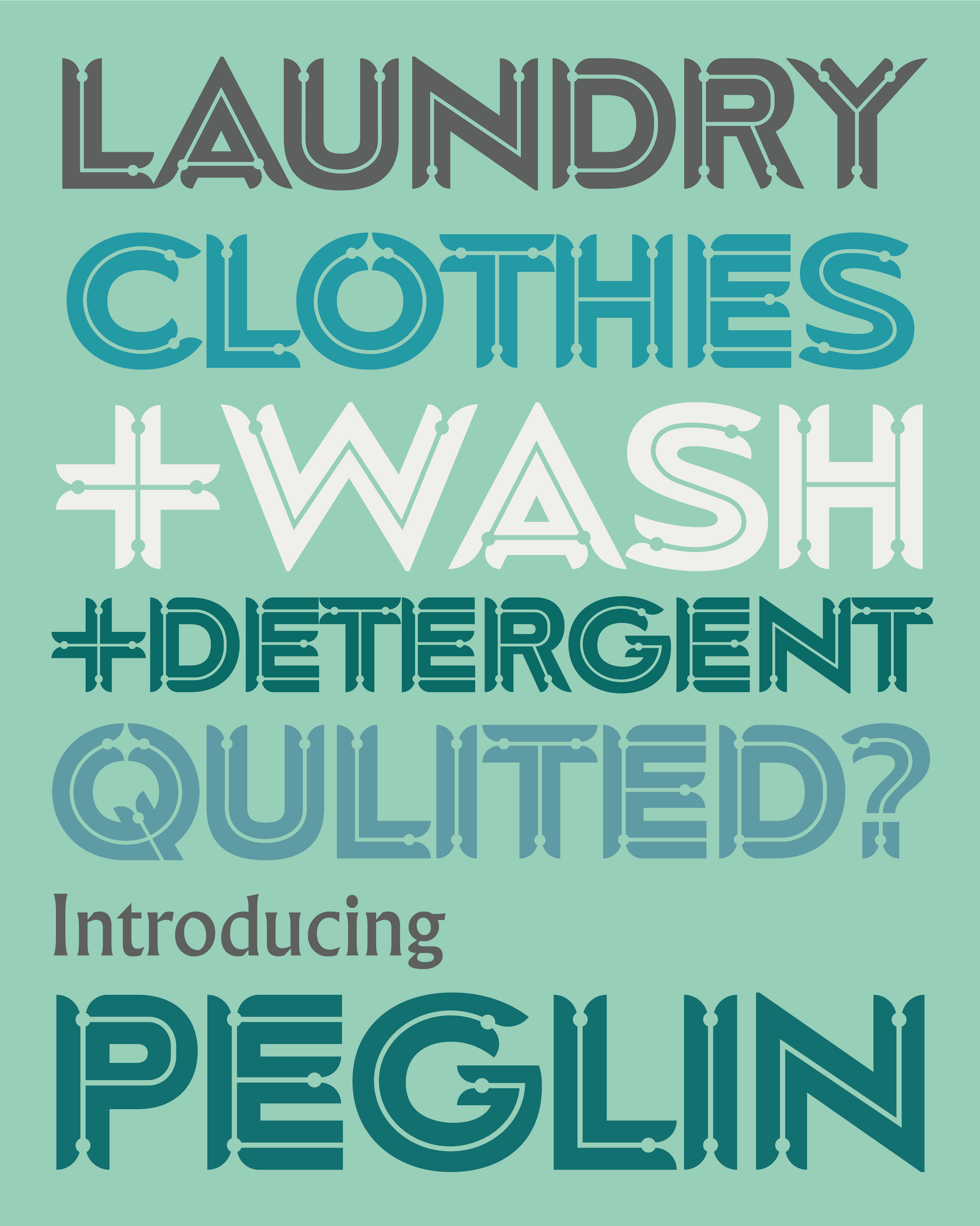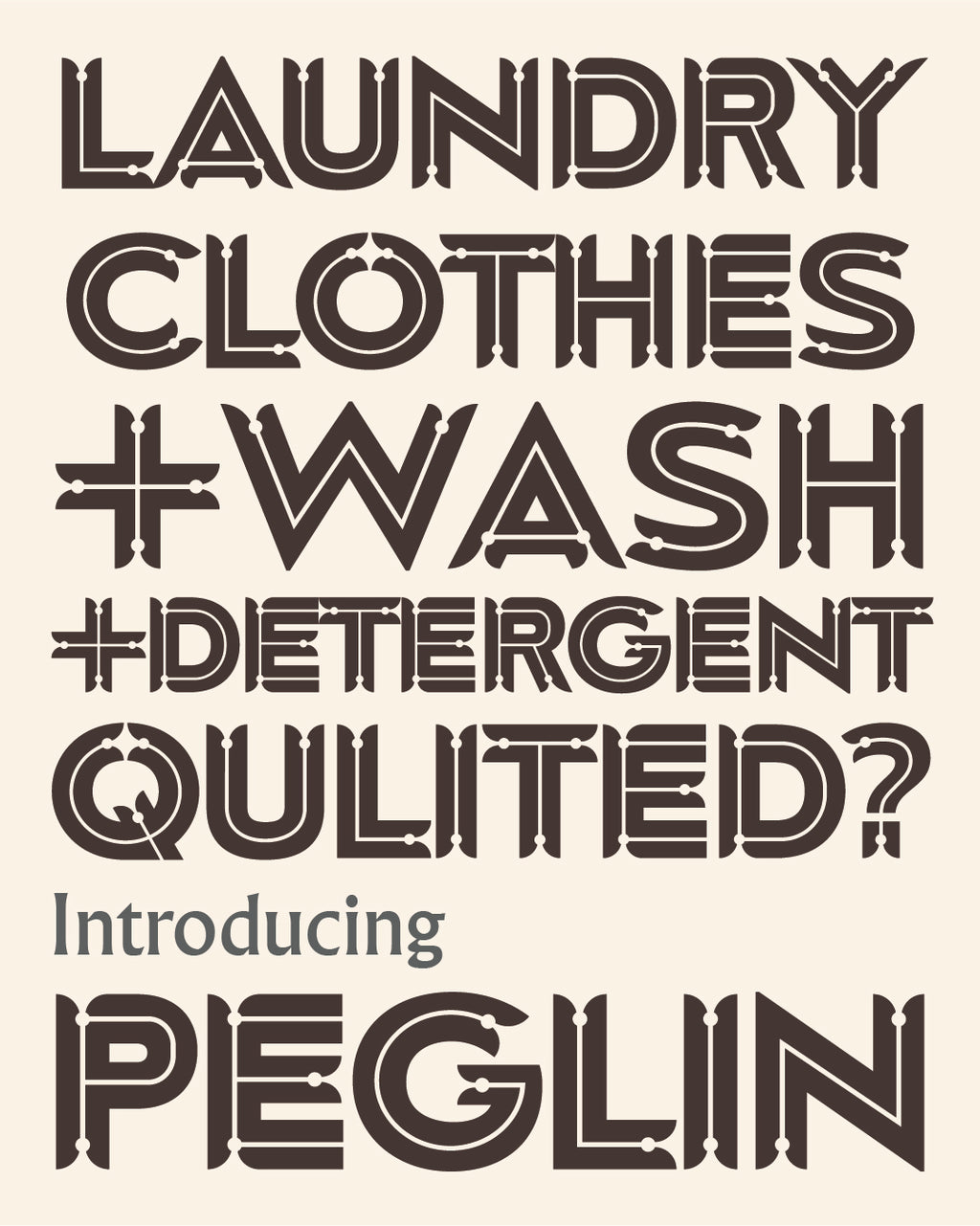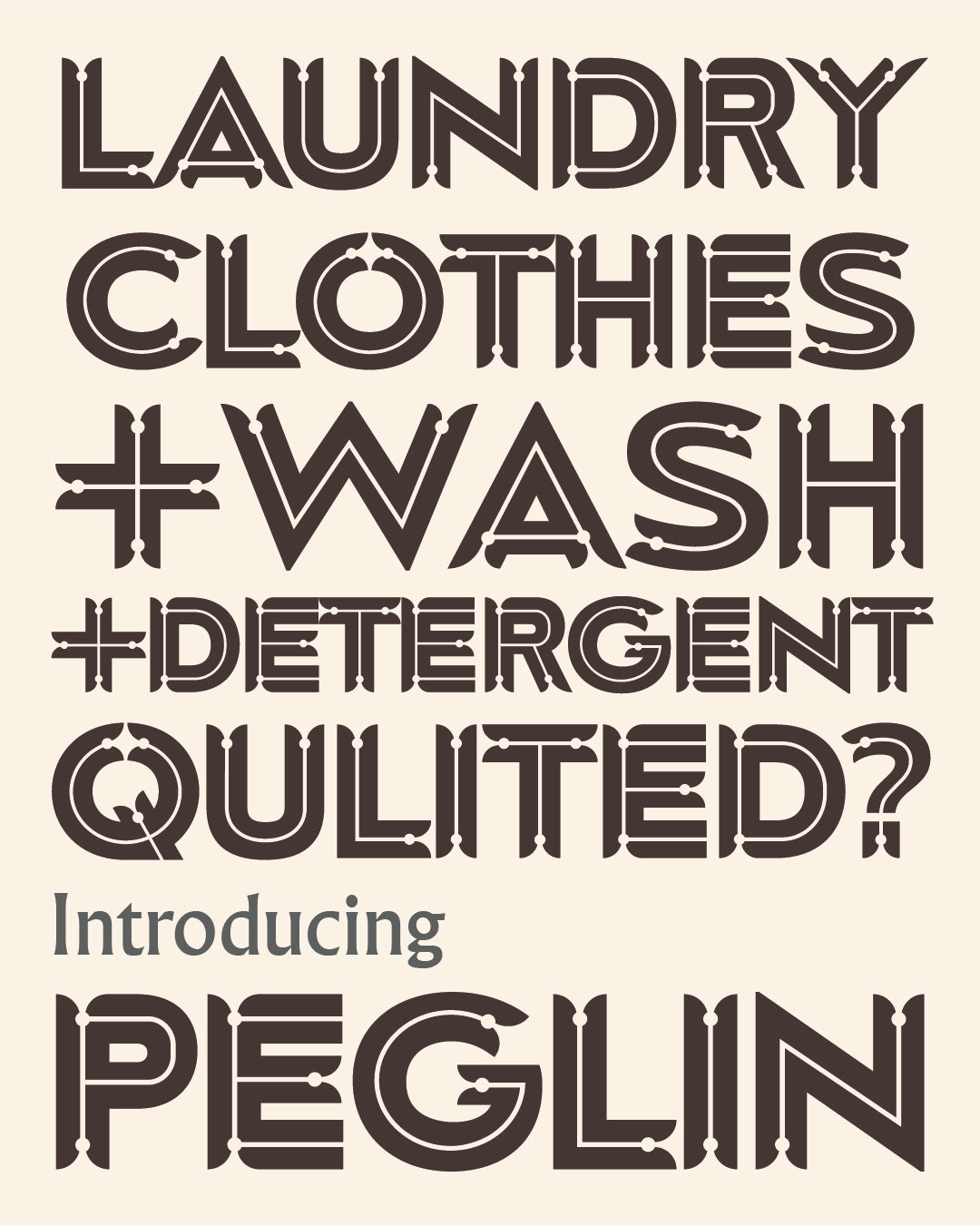
‘Peglin' Letterpress Woodtype Typeface
A new ornamental typeface inspired by a washing line peg (!) - designed by Mark McKellier.
6 line (25.4mm) version cut from end grain English hardwood using a combination of modern CNC technology and traditional hand woodworking tools (including an original printers saw), made to English type-high (0.918in or 23.3mm) within plus or minus 0.1mm tolerance, with a traditional polished printing surface.
English end grain hardwood, clear shellac, linseed oil.
Each block measures an average of 25mm x 23.3mm x 25.4mm.